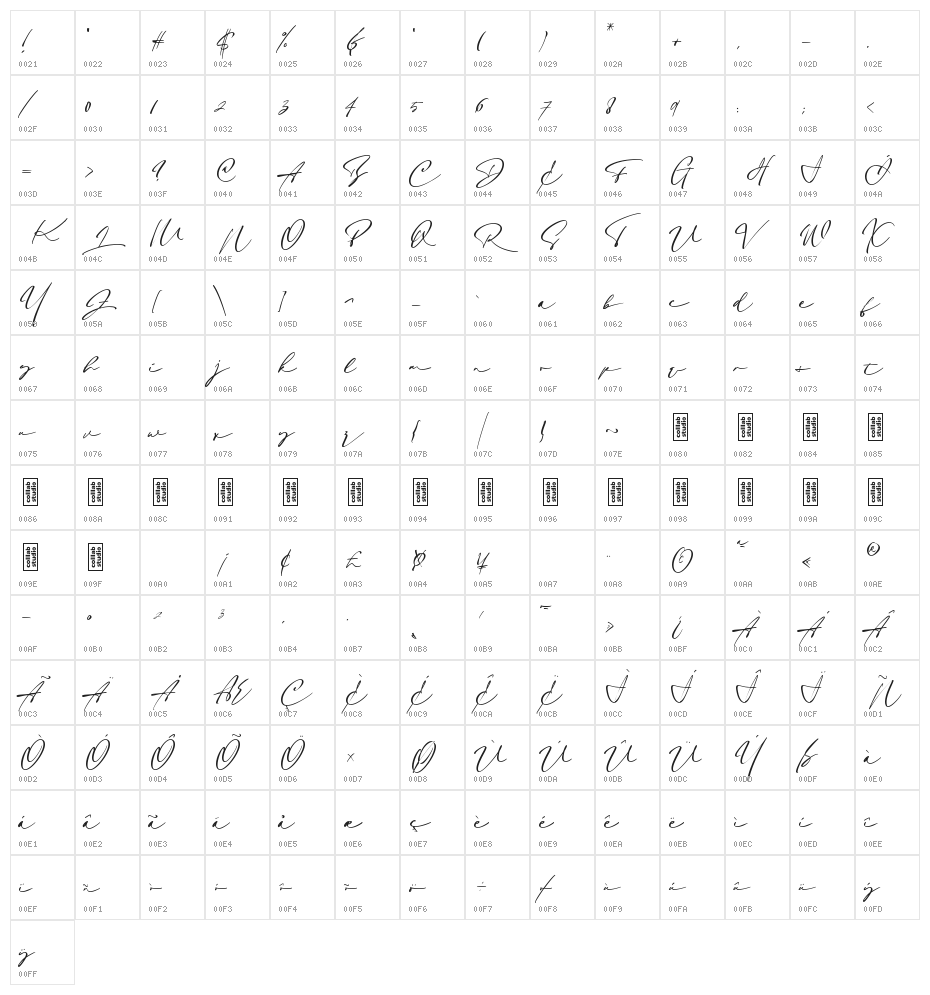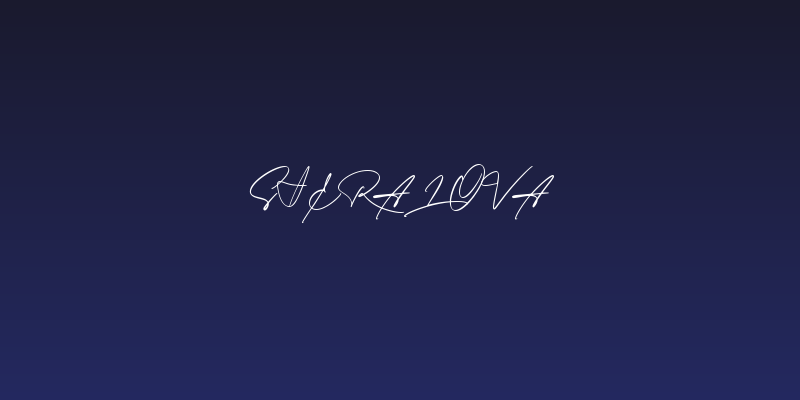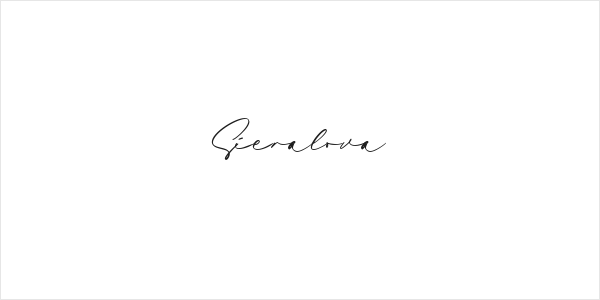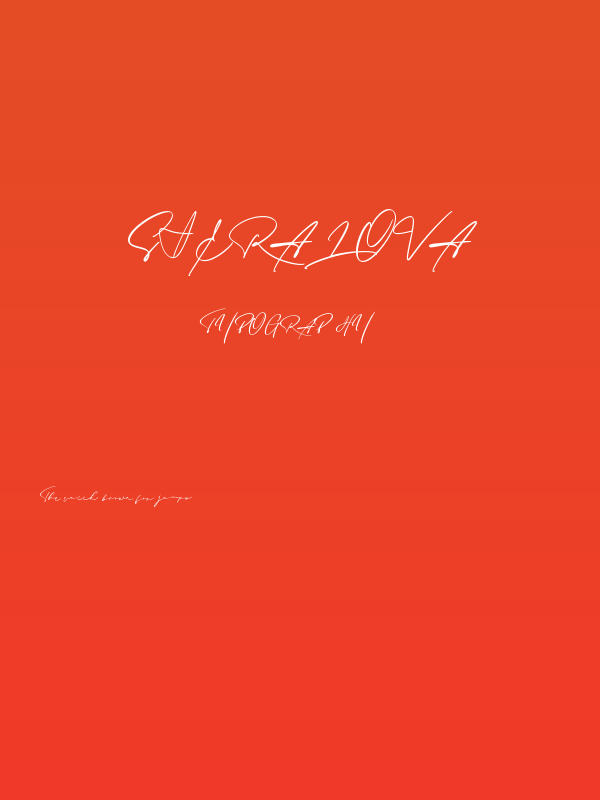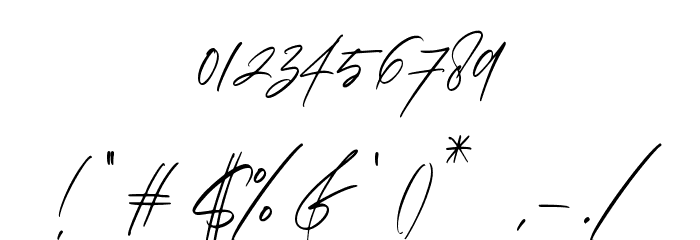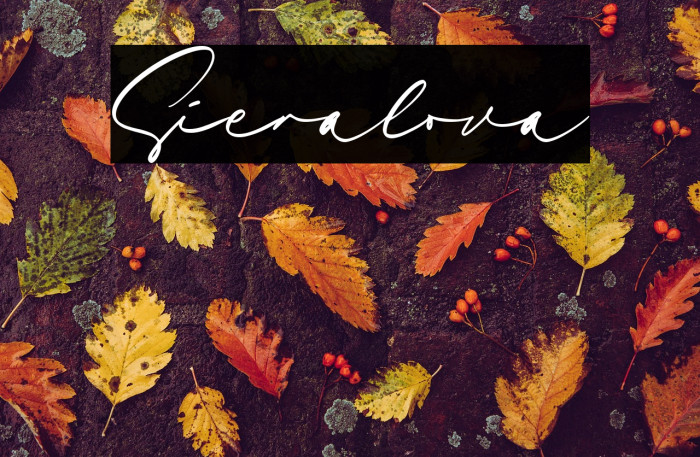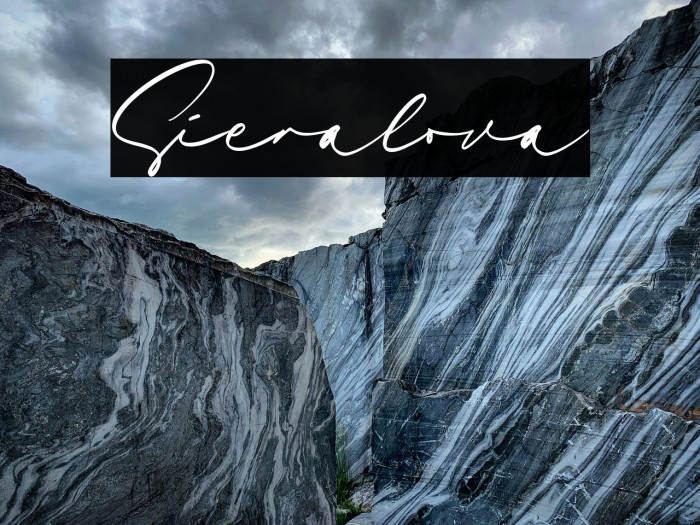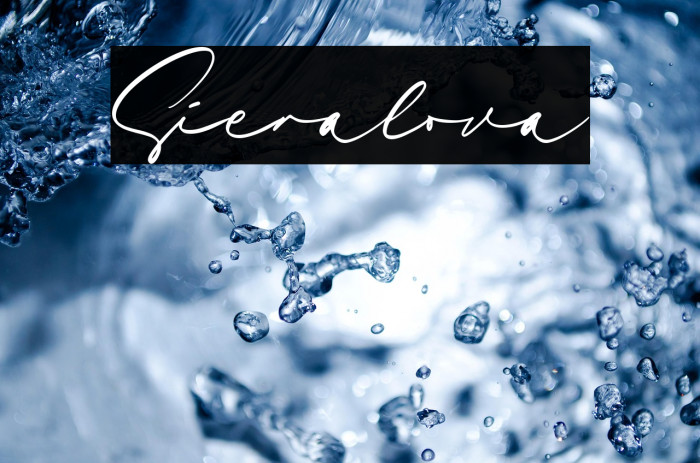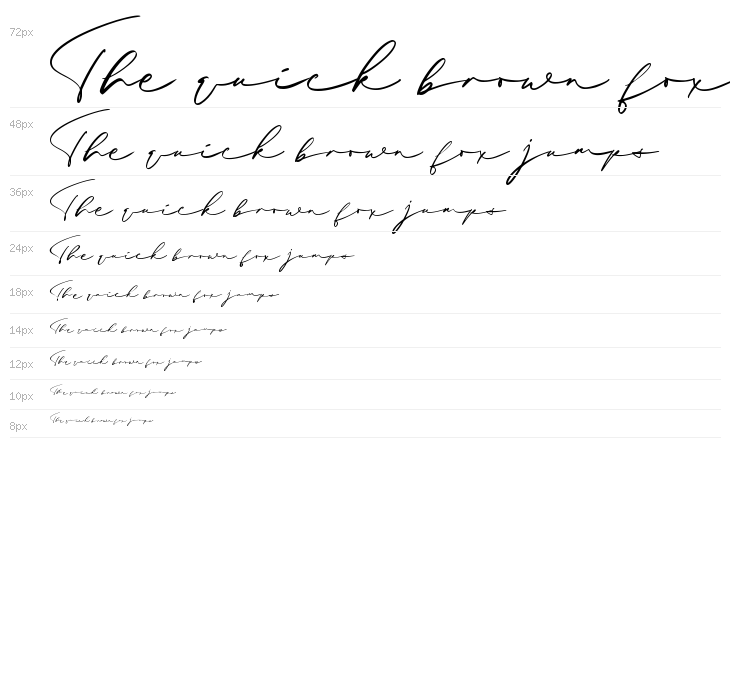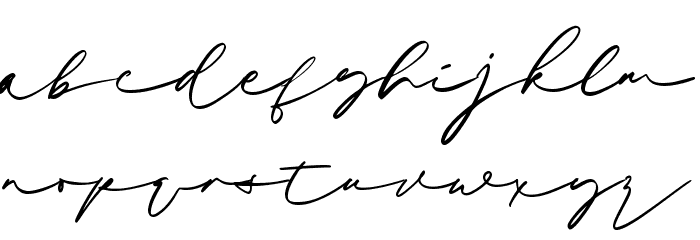
Sieralova Font
Sieralova Description
This font features an elegant and flowing script style, characterized by its smooth, cursive strokes and a handwritten appearance. The letters are interconnected, creating a seamless and fluid look that mimics natural handwriting. The uppercase letters are slightly more elaborate, with graceful loops and curves, while the lowercase letters maintain a consistent and harmonious flow. The numerals and special characters are designed to match the overall aesthetic, ensuring a cohesive appearance across all text. This font exudes a sense of sophistication and charm, making it ideal for projects that require a personal and artistic touch.
| Overall Style | Elegant, Artistic |
| Proposed Projects | Ideal for wedding invitations, greeting cards, personal branding, and artistic projects. |